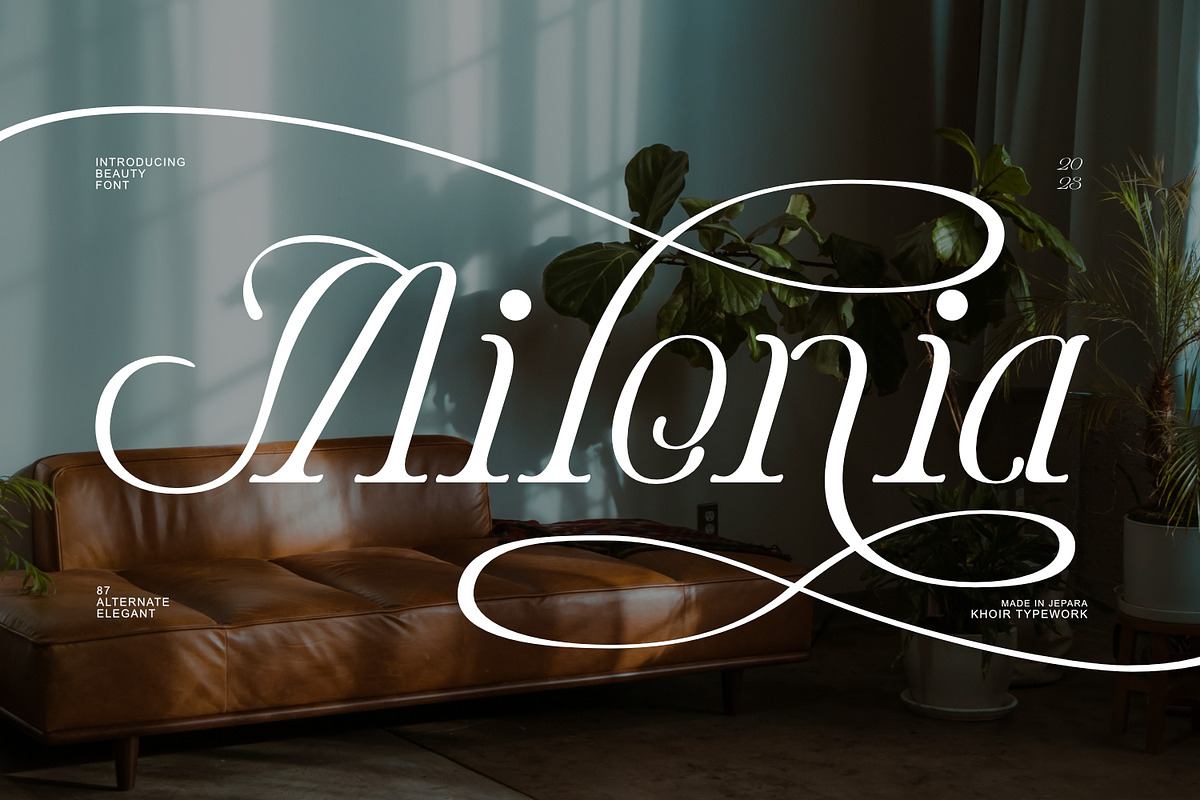
Milonia - Font Free Download
Please note, you must purchase this font for commercial use. However, you can easily download Milonia - Font Free Download for personal use and testing purposes. Milonia Font is a modern and elegant typeface designed to give your designs a sophisticated and stylish feel. With its clean lines and balanced letterforms, this font is perfect for branding, logos, invitations, and other creative projects. Whether you're creating a luxury brand, a chic website, or an elegant poster, Milonia Font Free Download adds a refined touch to any design. Download Milonia Font Free Download today and explore its potential before opting for a commercial license.